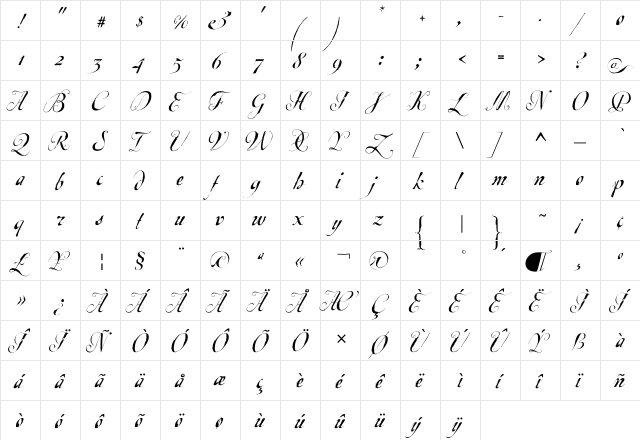
Escrita Principal
Design Context for Escrita Typeface
Escrita is a composed and adaptable typeface that performs quietly and consistently across a wide range of design contexts.